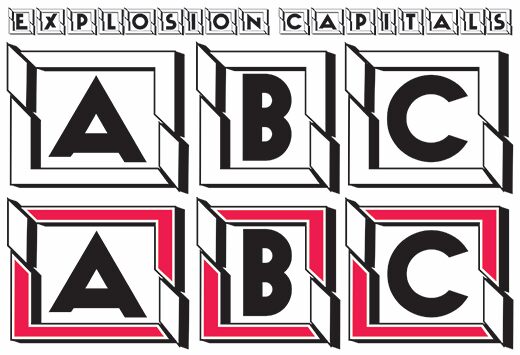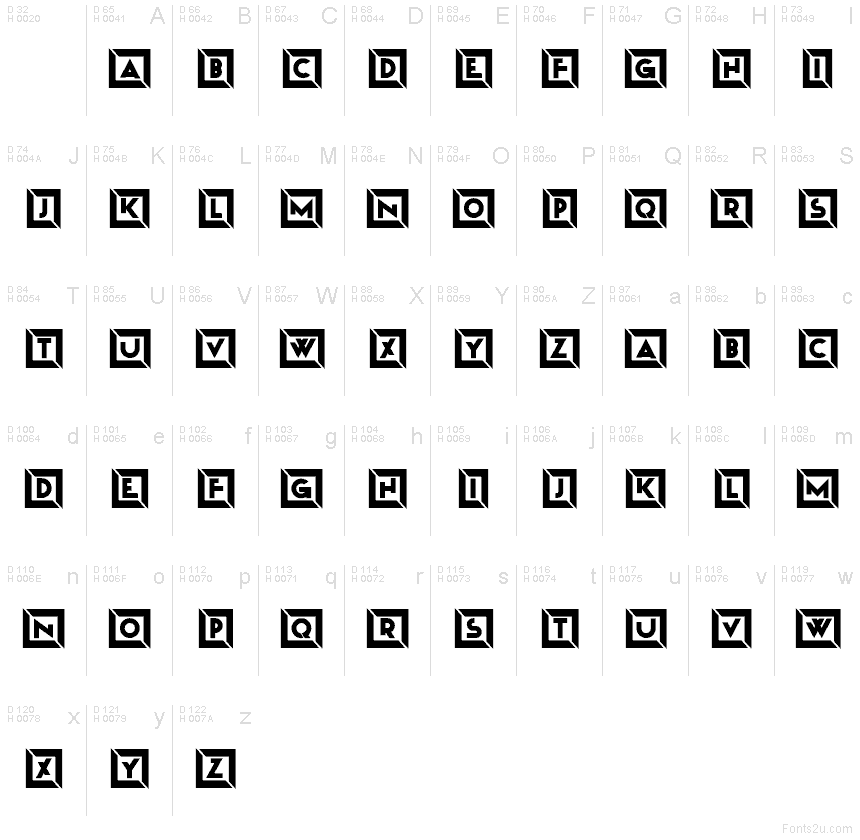
Explosion Capitals Book Regular
Explosion Capitals Book font by Vladimir Nikolic is a free decorative display typeface that turns every word into a comic-book sound effect. Each bold block letter sits in its own square, with jagged inner shapes that feel like bursting flashes or shattered glass. The high-impact black-and-white contrast gives text a punchy, poster-like presence, as if your headline just leapt off the page with a loud “boom.”
Using Explosion Capitals Book font, you can inject instant energy into comic covers, gaming titles, YouTube thumbnails, kids’ party posters, event flyers, and sticker designs. This free font thrives in big sizes where its chunky boxes and spiky interiors can really be seen. For supporting copy, pair it with a simple, clean sans serif and let Explosion Capitals handle the loud, attention-grabbing headlines on its own line.
Overlap (combine) small caps and large caps letters for the desirable results!